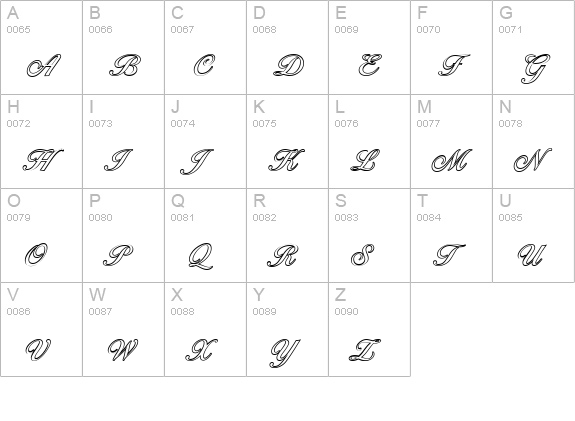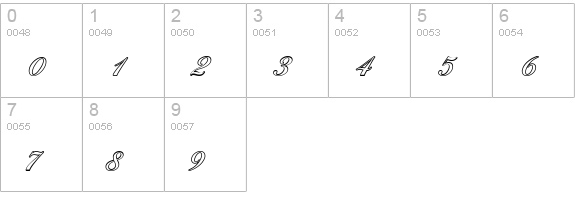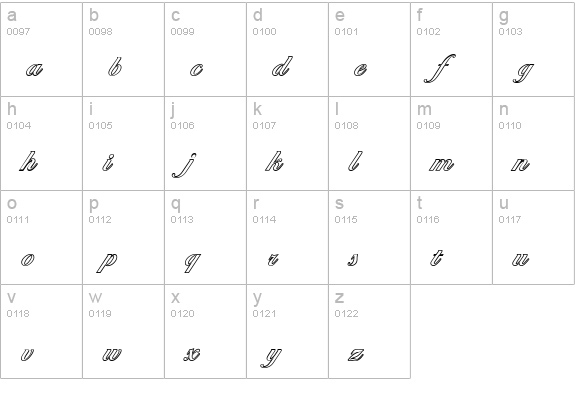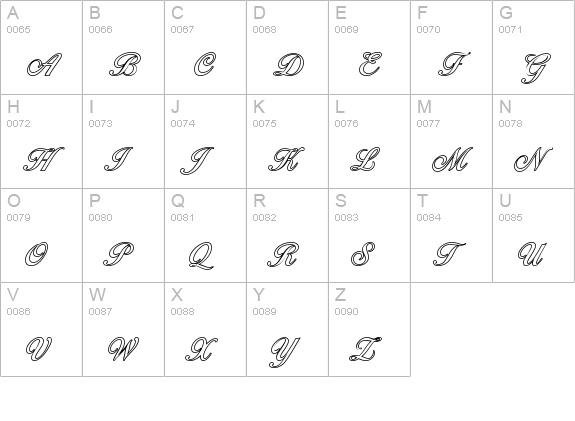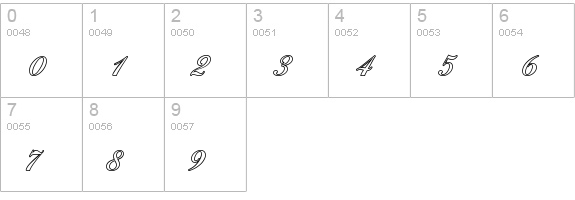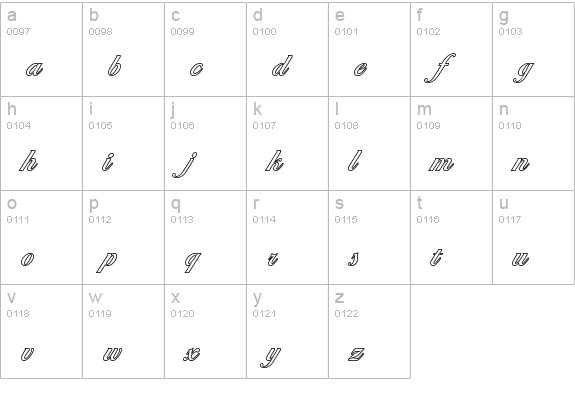
BallantinesOutline-Medium-Regular is a balanced, medium-weight variant in the BallantinesOutline typeface family \xE2\x80\x94 well suited to sub-headlines, navigation, and balanced editorial work.
BallantinesOutline-Medium-Regular font is a modern and stylish typeface that exudes sophistication and elegance. With its clean lines and balanced letterforms, this font is perfect for a wide range of design projects, from branding to editorial design. The medium weight of the font strikes the perfect balance between readability and impact, making it versatile and suitable for both headlines and body text. The BallantinesOutline-Medium-Regular font is available for free download at FontsMarket.com, making it accessible to designers and creatives looking to add a touch of class to their projects without breaking the bank. Whether you're working on a print design, web project, or any other creative endeavor, this font is sure to elevate your work and leave a lasting impression on your audience.